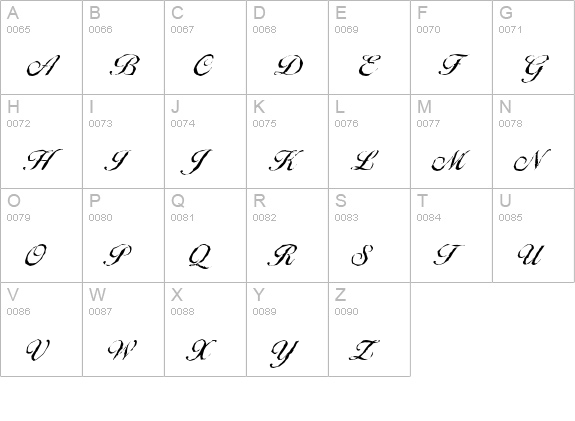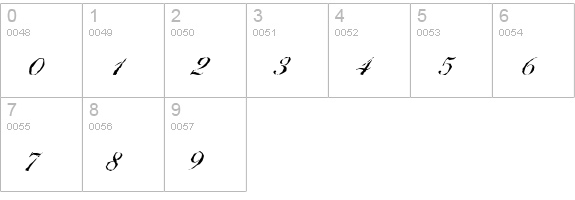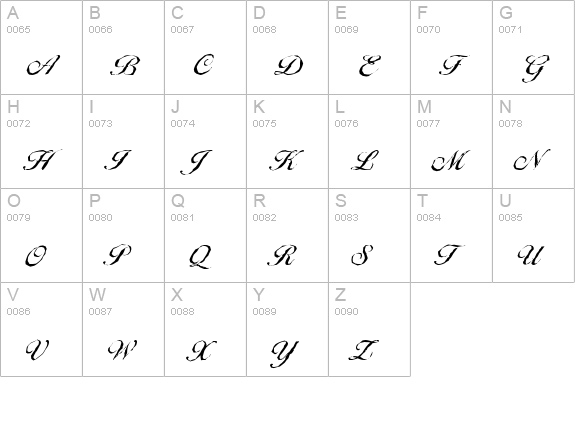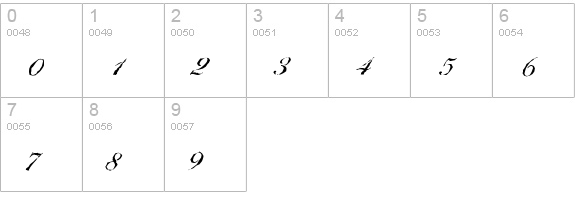
BallantinesAntique-Regular is the standard, neutral variant in the BallantinesAntique typeface family \xE2\x80\x94 well suited to general body text, paragraphs, and standard typographic work.